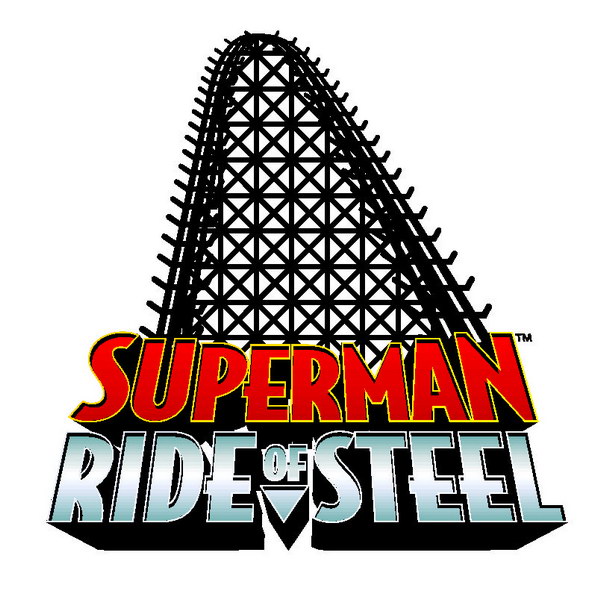
Superman Ride of Steel Font
EntertainmentSuperman – Ride of Steel is a roller coaster located at Six Flags America amusement park. It features a 208-foot drop and speeds up to 73 mph, providing an exciting and thrilling experience for riders.
The logo of Superman Ride of Steel most likely features the font Bodega Sans Black. This typeface was created by Greg Thompson in 1990, incorporating elements from the Art Deco era for a nostalgic yet modern look.